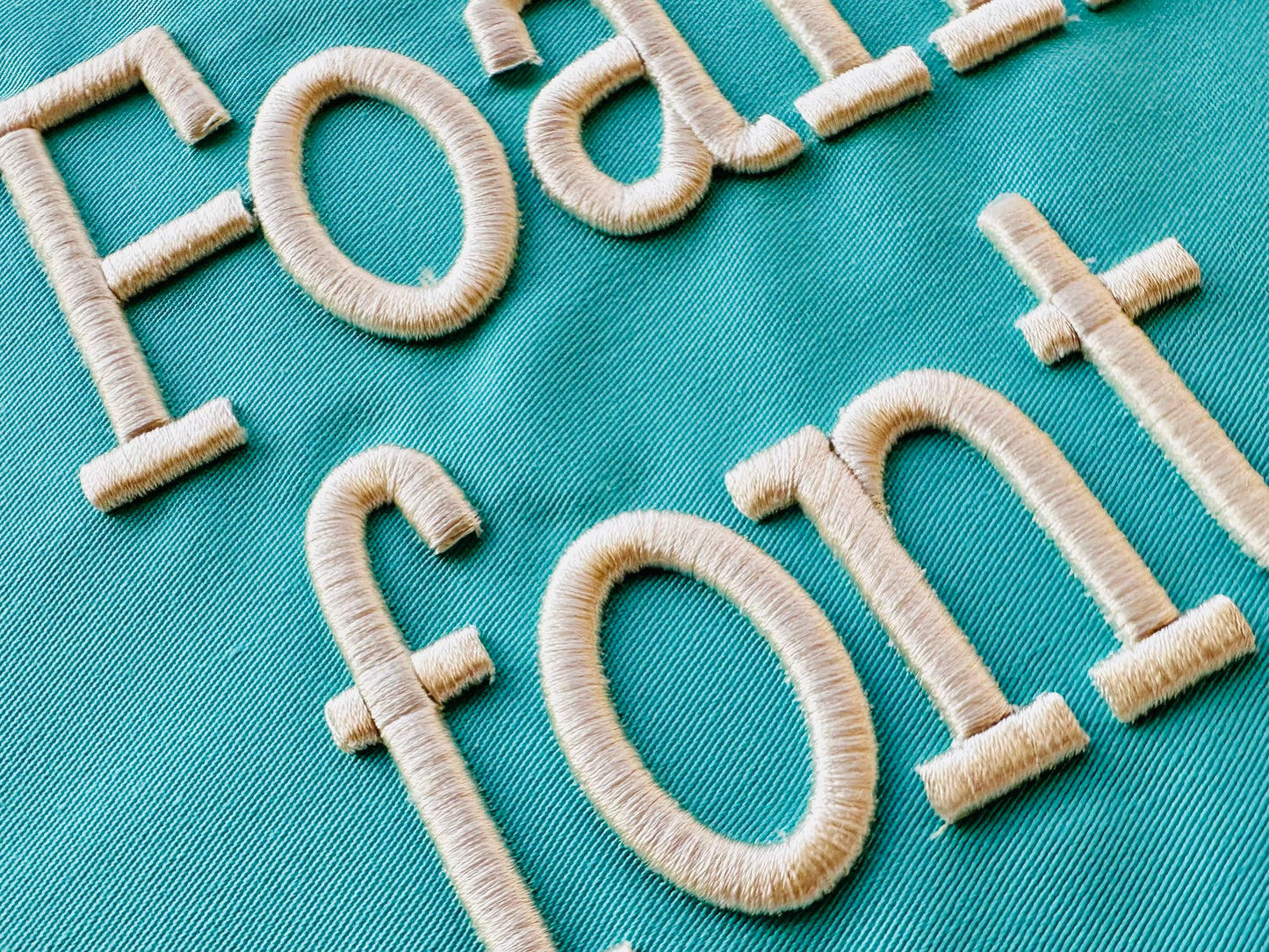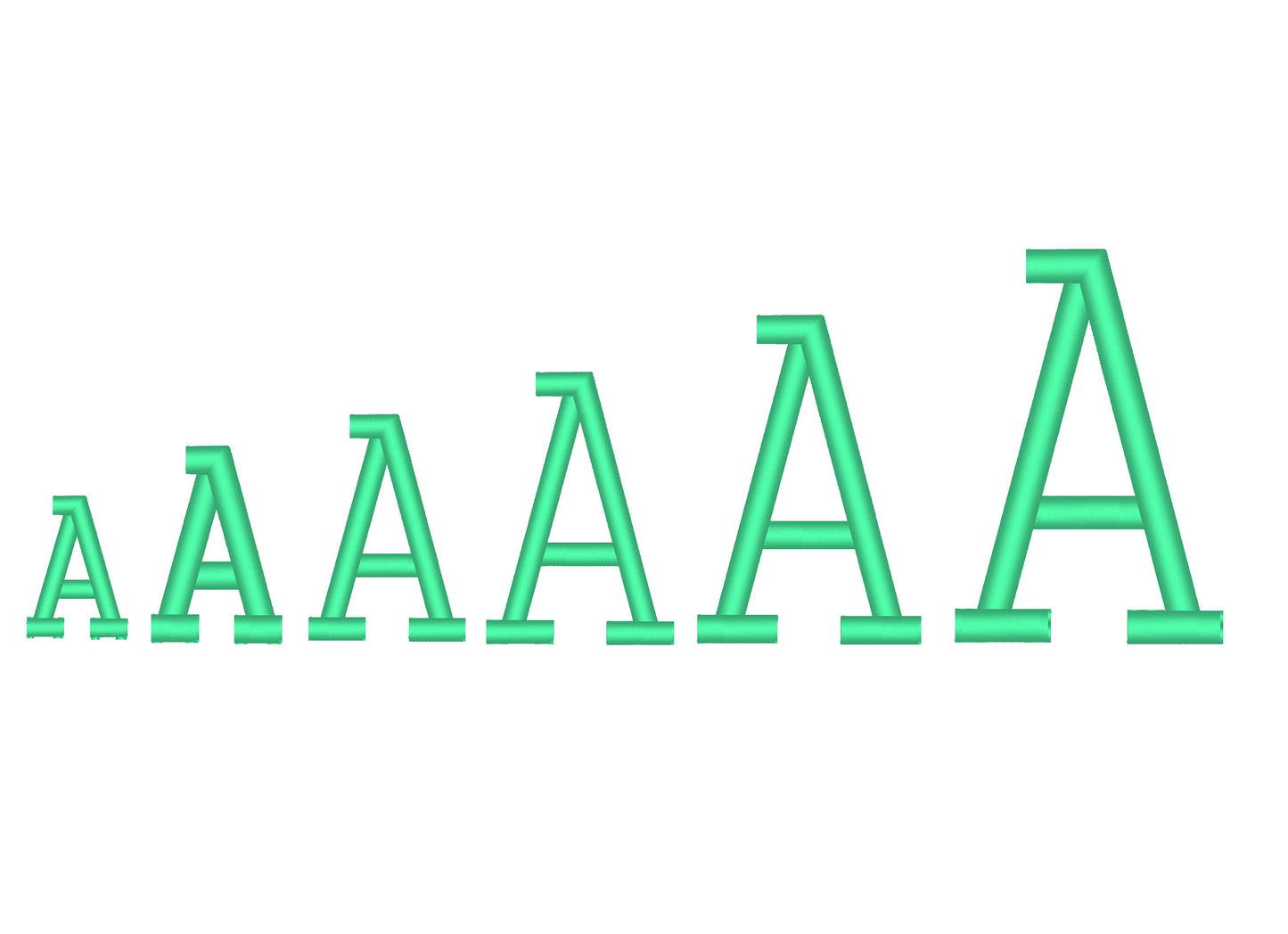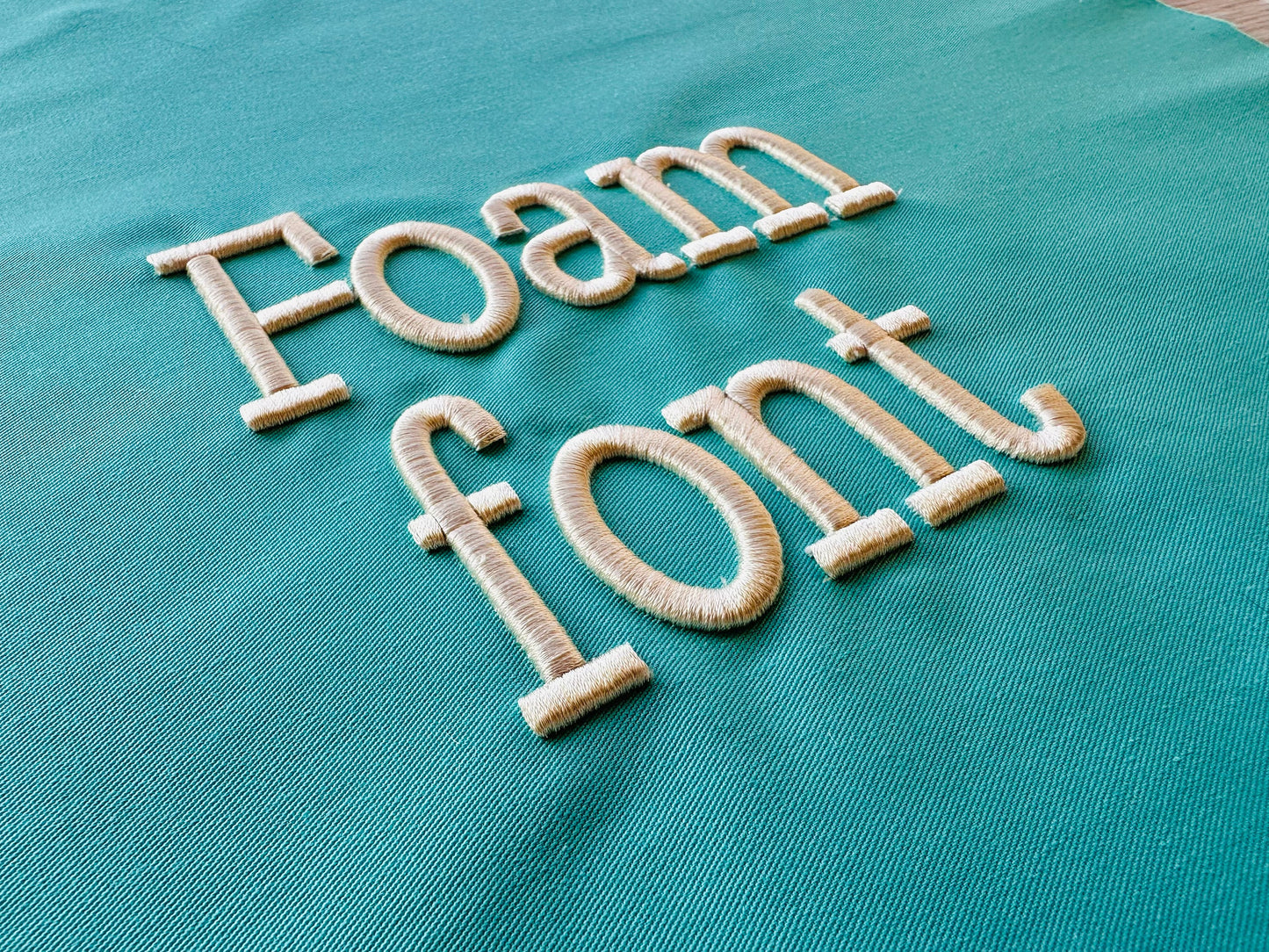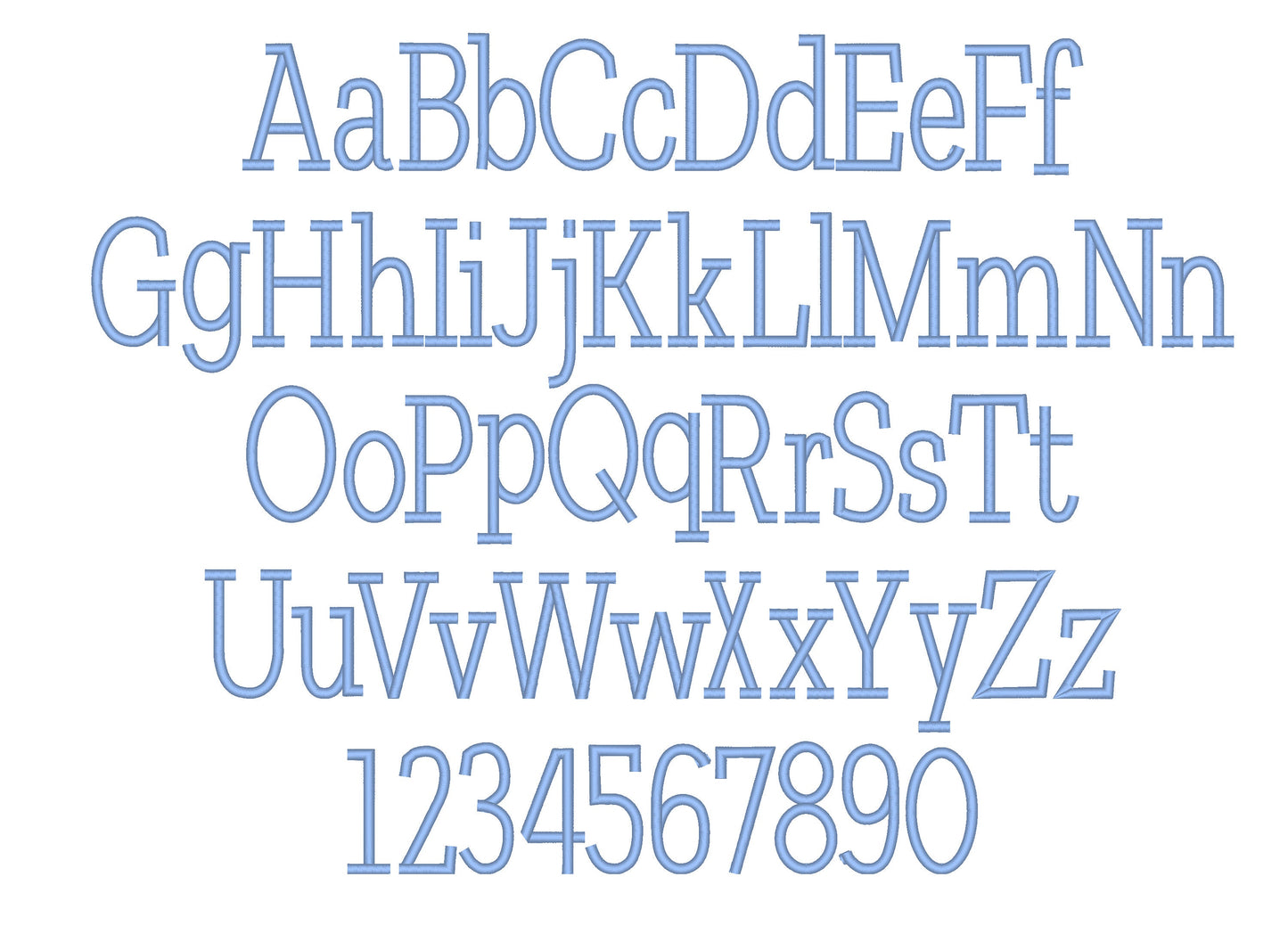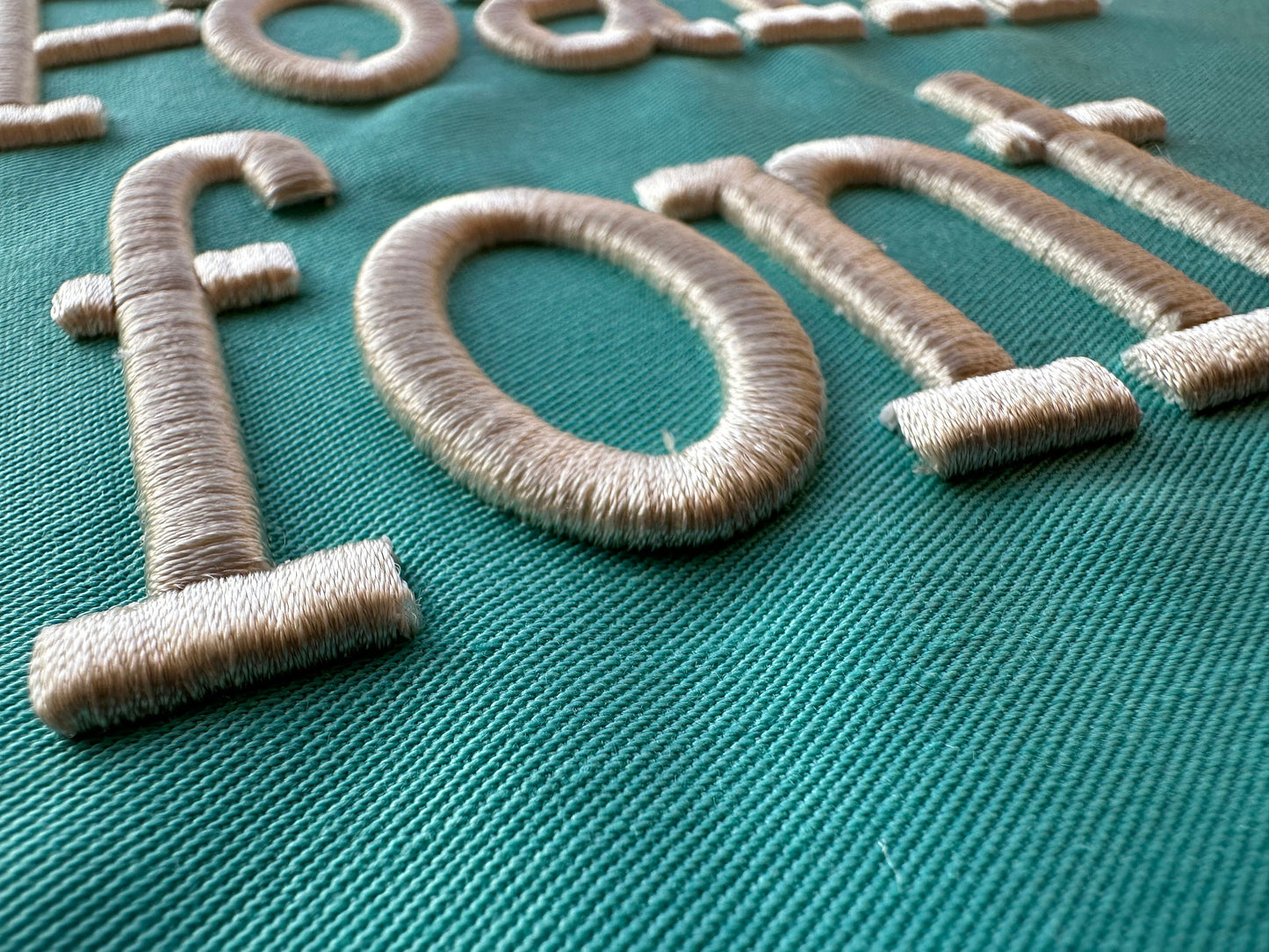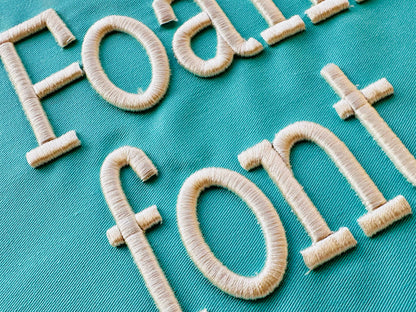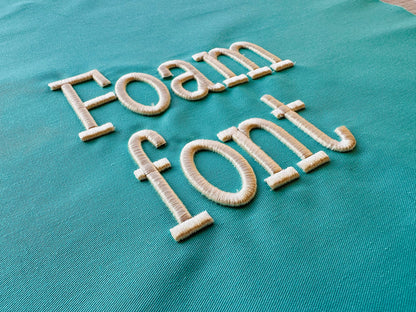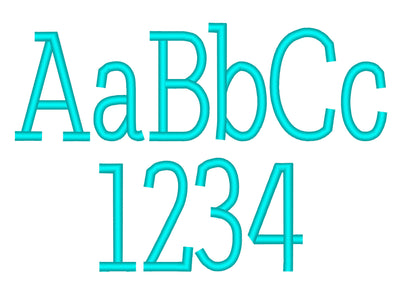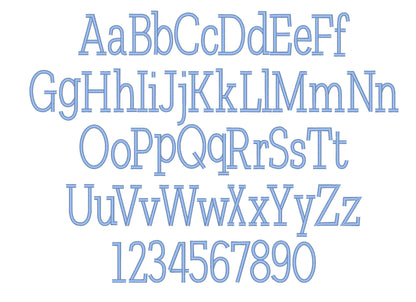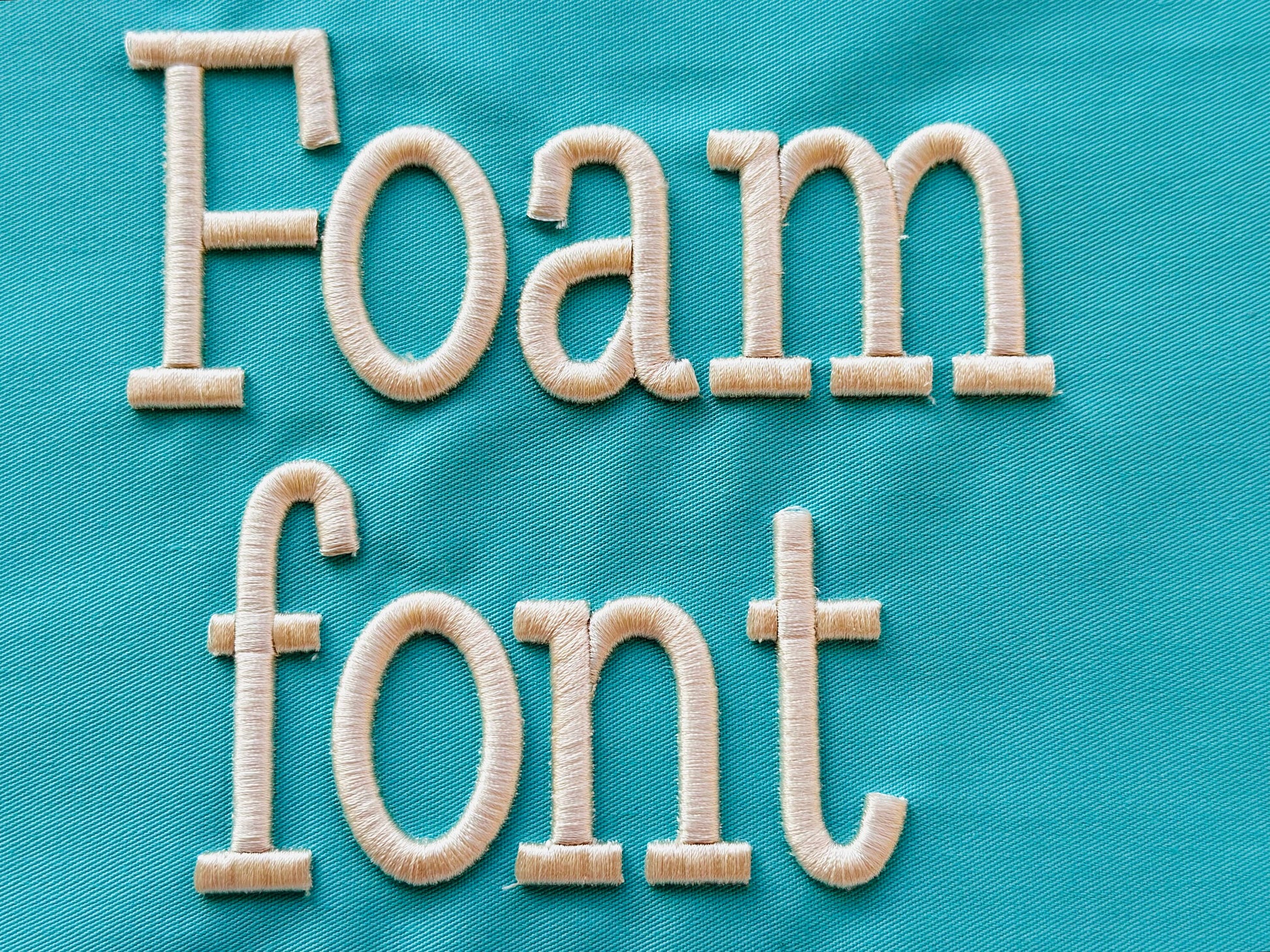
First attempt at foam font and this one worked amazingly !! My item turned out great no issues , didn’t have to slow Machine down or change density just embroidered straight on. Thanks and will buy from this seller again.
This puff embrodiery turned out really great.
This puffy font stitched out perfectly!
I recommend doing a trial run before you put it on your final garment
Stitched over perfectly. I did the trick of cleaning up some of the foam with heat shrinking.
The design stitched out beautifully
I’m in love with this font! Stitched out perfectly!
Great puffy font! I used variegated thread and it looks great. Also added fringe ice cream cones from this seller to finish the outfit. Love!!!
Great font, stitches wonderfully I wish it was a wider font but I love it!
The font is too think of satin stitches.
I watched the Artapli YouTube video on how to embroider with puff fonts and found it very helpful. My first attempt came out great, and I look forward to using this font more in the future!
First time trying out this method so I didn’t place the foam until after the first trace was done I thought it was like aplique were you have to place fabric and then cut. Now I know how it’s supposed to be but this still turned out so cute.